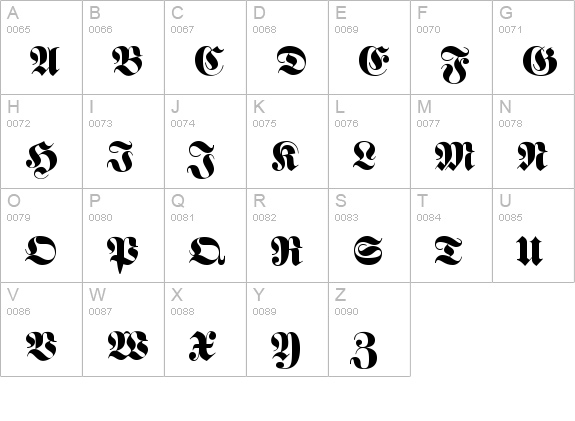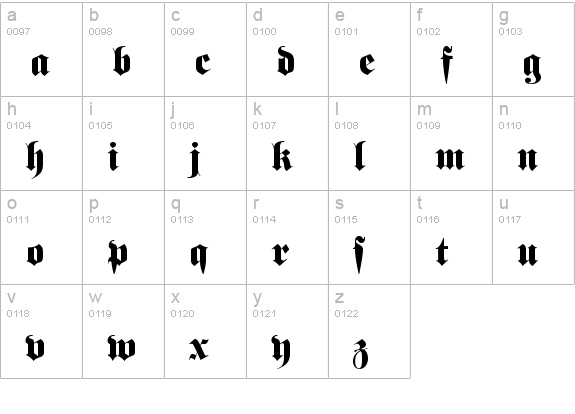
Fette Fraktur Dfr Font Details
Fette Fraktur Dfr is a striking and elegant typeface that captures the essence of traditional Blackletter fonts with a modern twist. Its bold and intricate letterforms exude a sense of timeless sophistication, making it perfect for adding a touch of old-world charm to your designs. This font is not only visually captivating but also highly versatile, suitable for a wide range of applications such as branding, invitations, posters, and more. Its distinctive style commands attention and adds a touch of drama to any project. The best part is that Fette Fraktur Dfr is available for free download at FontsMarket.com. This means that you can easily access this beautiful font and elevate your designs without any cost. Don't miss out on the opportunity to enhance your creative projects with this stunning typeface!